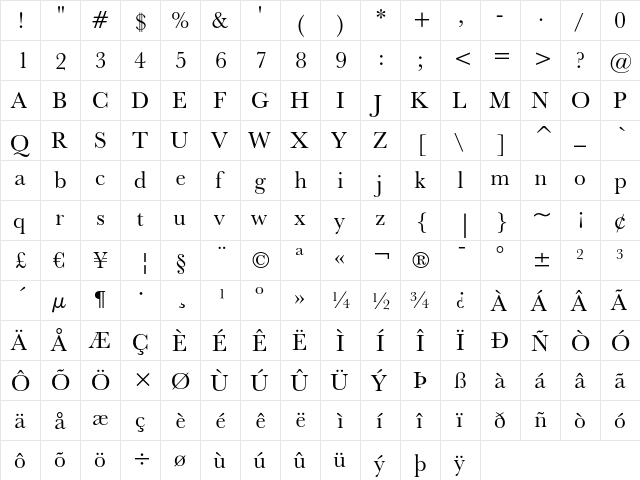
Baskerville No.2 Regular
Design Context for Baskerville No.2 Typeface
Baskerville No.2 takes a measured approach to typography — its balanced proportions and neutral character make it a reliable workhorse for both digital and print work.
Pro Tip: Pair Baskerville No.2 with a font of contrasting weight or personality to build a more expressive typographic hierarchy.